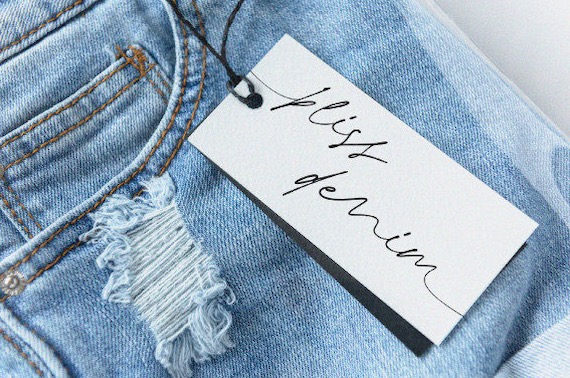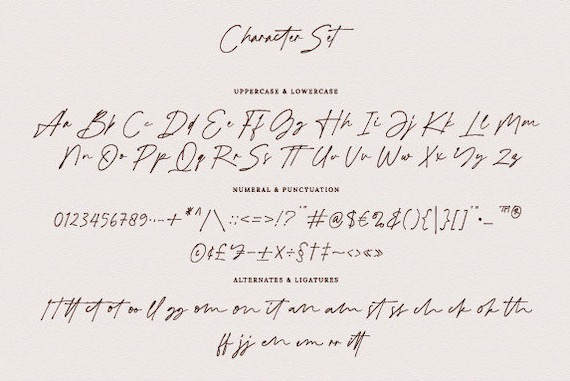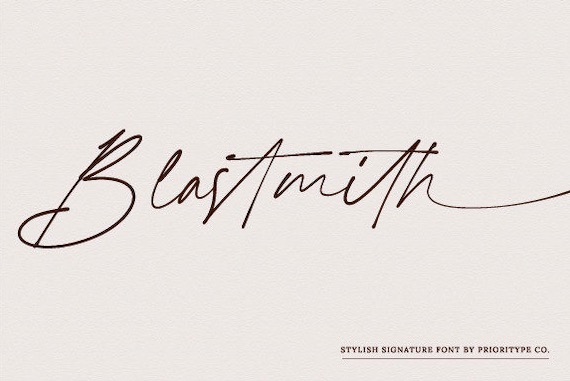
Blastmith is a stylish and modern handwritten script font along with signature-like characteristics. Blastmith font is PUA encoded which means you can access all of the glyphs and swashes with ease! The presence of several swash & ligatures letters adds a natural impression to this font. It is suitable for invitation design, branding, quotes, business cards, or social media posts.
Blastmith Handwritten Signature Font